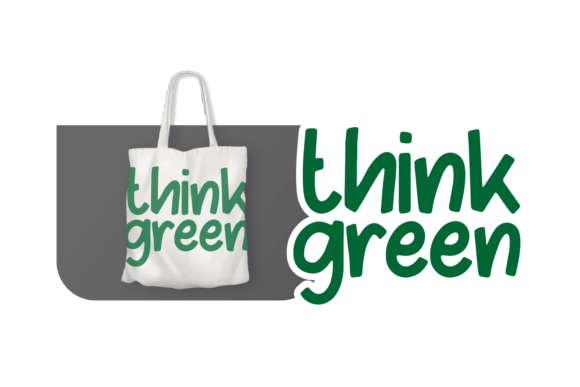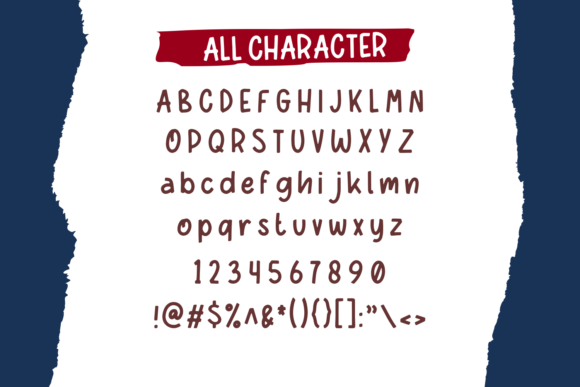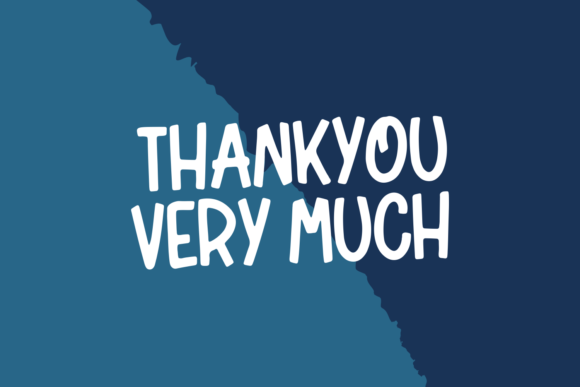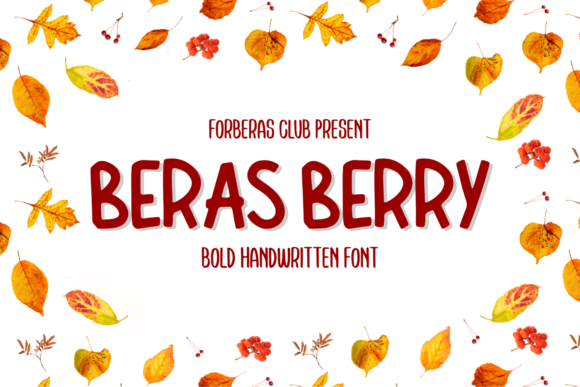
The Ultimate Guide to Beras Berry Font: Adding a Touch of Whimsy to Your Designs
I’ll never forget the time I was working on a project for a children’s party invitation. I had the perfect design concept, but I just couldn’t find a font that captured the playful and fun vibe I was going for. That was until I stumbled upon Beras Berry Font. This adorable display font instantly elevated my design and made it stand out from the rest. In this article, I’ll share with you why I’m obsessed with Beras Berry Font and how you can make the most of it in your own designs.
An Honest Review of Beras Berry Font
Beras Berry Font is a cute, playful, and fun display font that’s perfect for designers, crafters, and creative hobbyists. Here’s what I love about it:
- ✨ Simple yet strong visual effect: Beras Berry Font is easy to read and understand, making it perfect for headlines, titles, and short paragraphs.
- ✅ Highly versatile: This font can be used for a wide range of design projects, from party invitations and greeting cards to posters and social media graphics.
- 💕 Playful and fun: Beras Berry Font has a unique and quirky personality that adds a touch of whimsy to any design.
While Beras Berry Font is an amazing font, it’s not without its quirks. Here are a few things to keep in mind:
- 🤔 Limited use for body text: Due to its playful and decorative nature, Beras Berry Font is best suited for headlines and short paragraphs. It may not be the best choice for longer blocks of text.
The Backstory of Beras Berry Font
Beras Berry Font was designed by a team of creative typographers who wanted to create a font that would bring a touch of whimsy and playfulness to designs. Inspired by the beauty of nature and the world around us, Beras Berry Font is a unique and quirky font that’s perfect for designers who want to add a personal touch to their work.
| Font Name | Beras Berry Font |
| Author | Forberas Club |
- Q: What is Beras Berry Font?
- A: Beras Berry Font is a cute, playful, and fun display font that’s perfect for designers, crafters, and creative hobbyists.